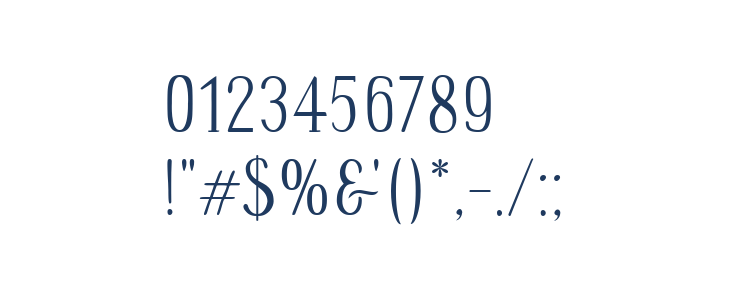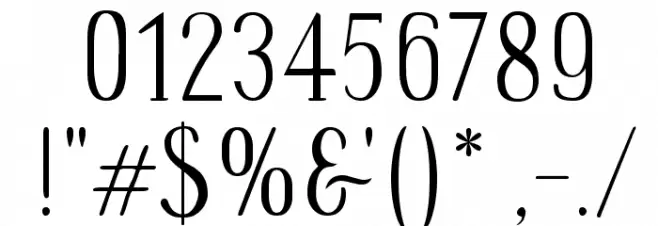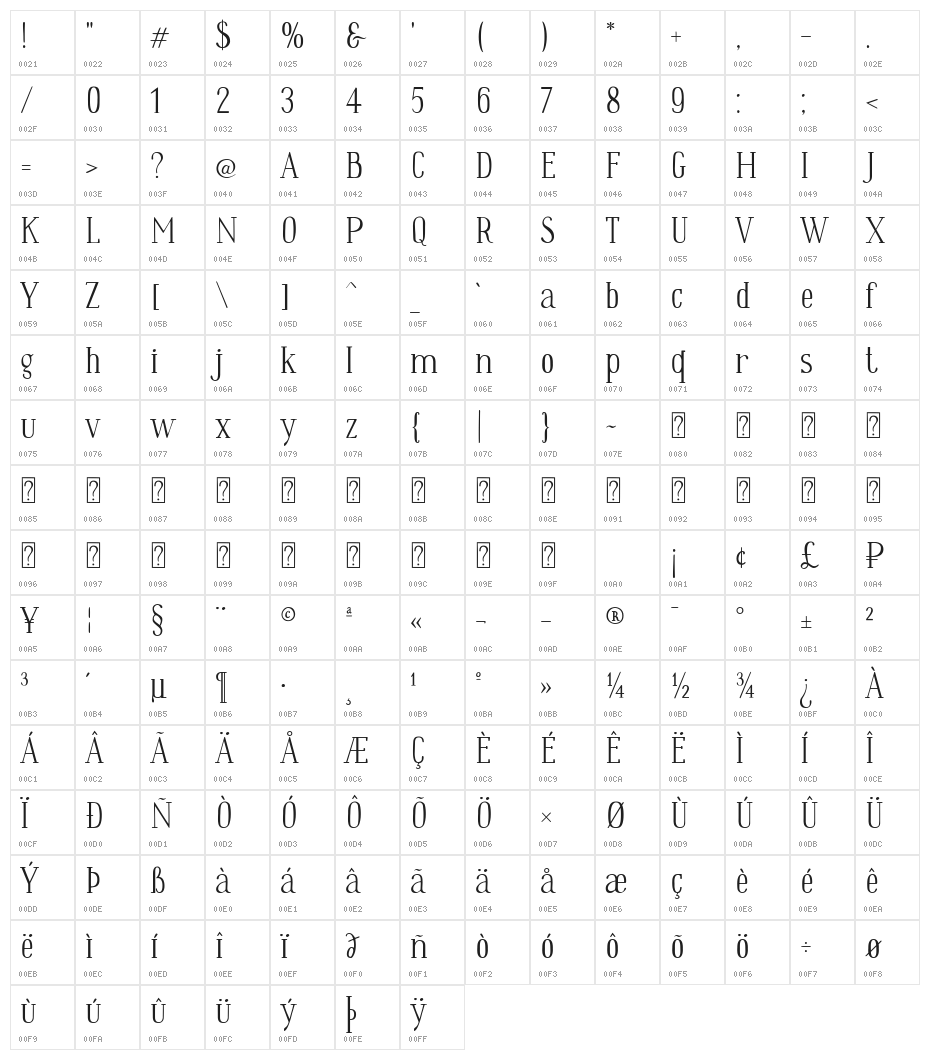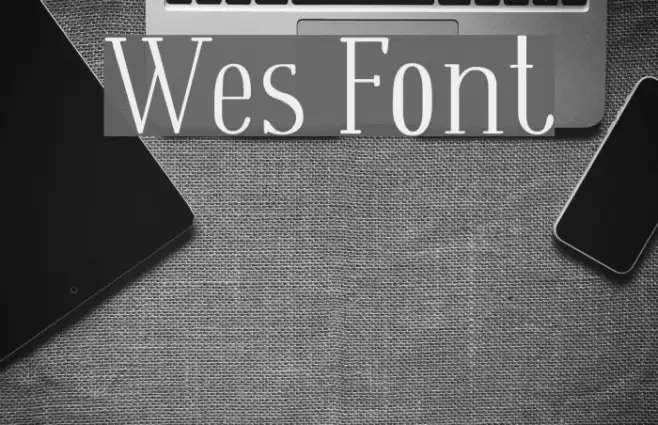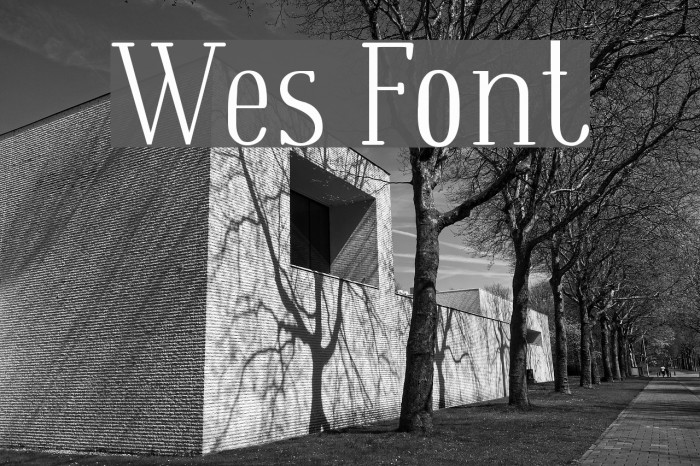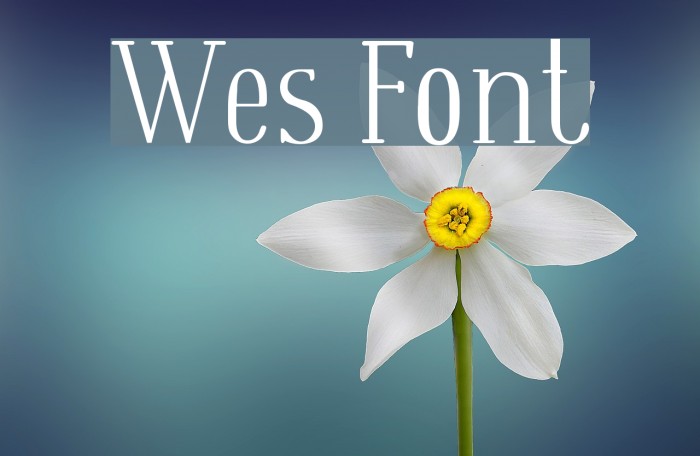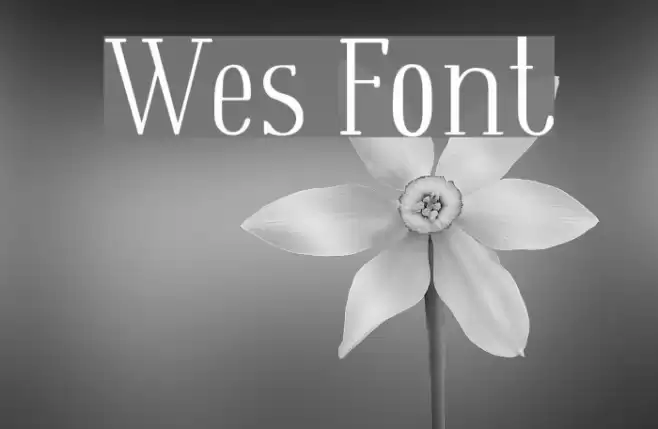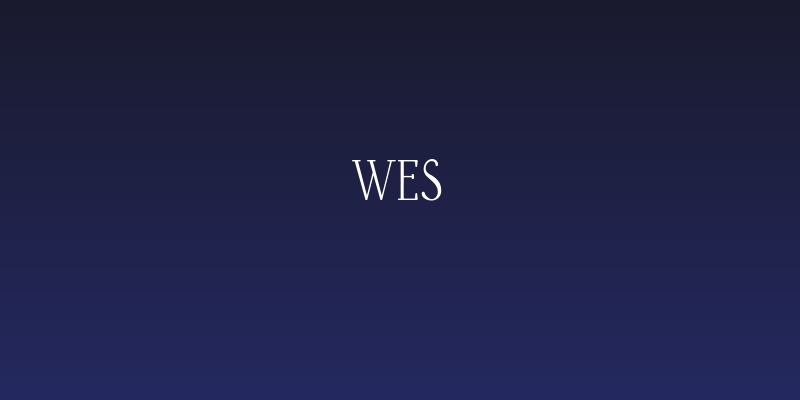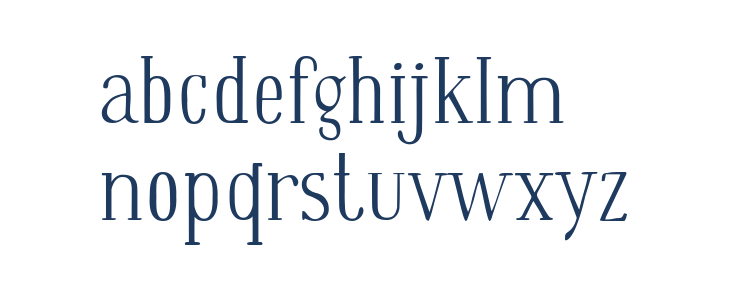
Wes Font
Wes Description
This font features a modern serif style with a clean and elegant appearance. The uppercase letters are tall and slender, with a slight contrast in stroke thickness that adds a touch of sophistication. The lowercase letters maintain a consistent style, offering a harmonious blend with the uppercase. Numbers are clear and legible, making them suitable for various applications. The special characters are well-designed, complementing the overall aesthetic. This font's refined look makes it versatile for both digital and print media.
| Proposed Projects | Ideal for editorial design, branding, book covers, and elegant invitations. |